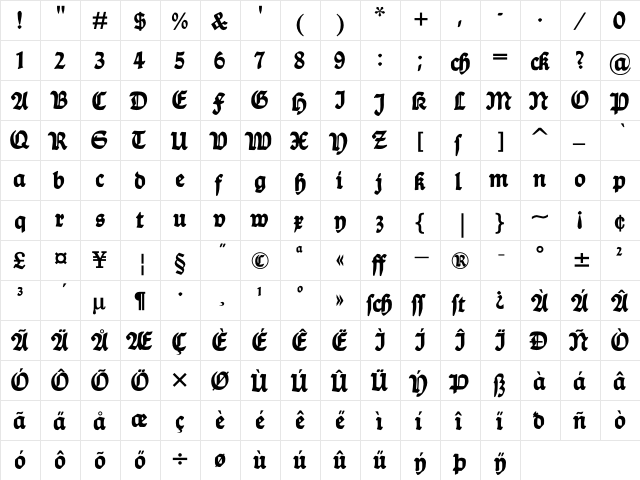
Ballade Bold
| Designer | Dieter Steffmann |
Design Context for Ballade Typeface
Ballade takes a measured approach to typography — its balanced proportions and neutral character make it a reliable workhorse for both digital and print work. The heavy weight commands attention and anchors typographic hierarchies.